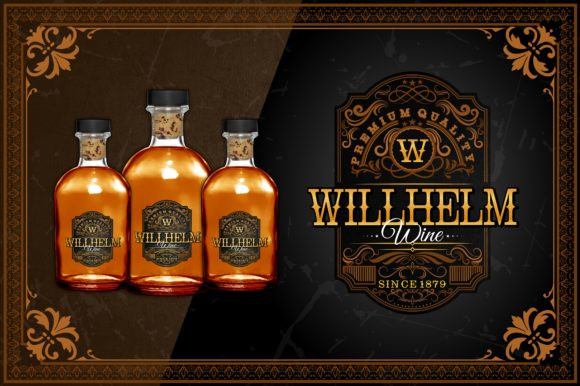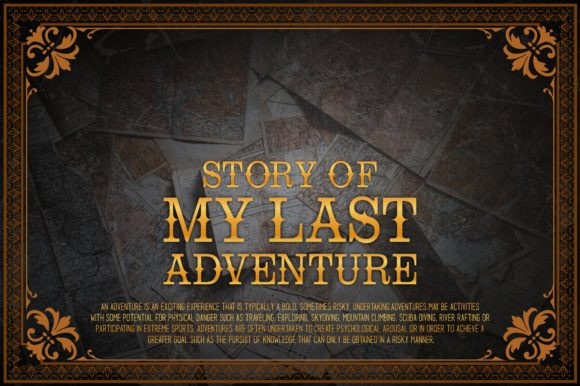
Fringilla Font
Fringilla is a gorgeous serif merged with blackletter details. This unique typeface will deliver any message with style and sophistication.